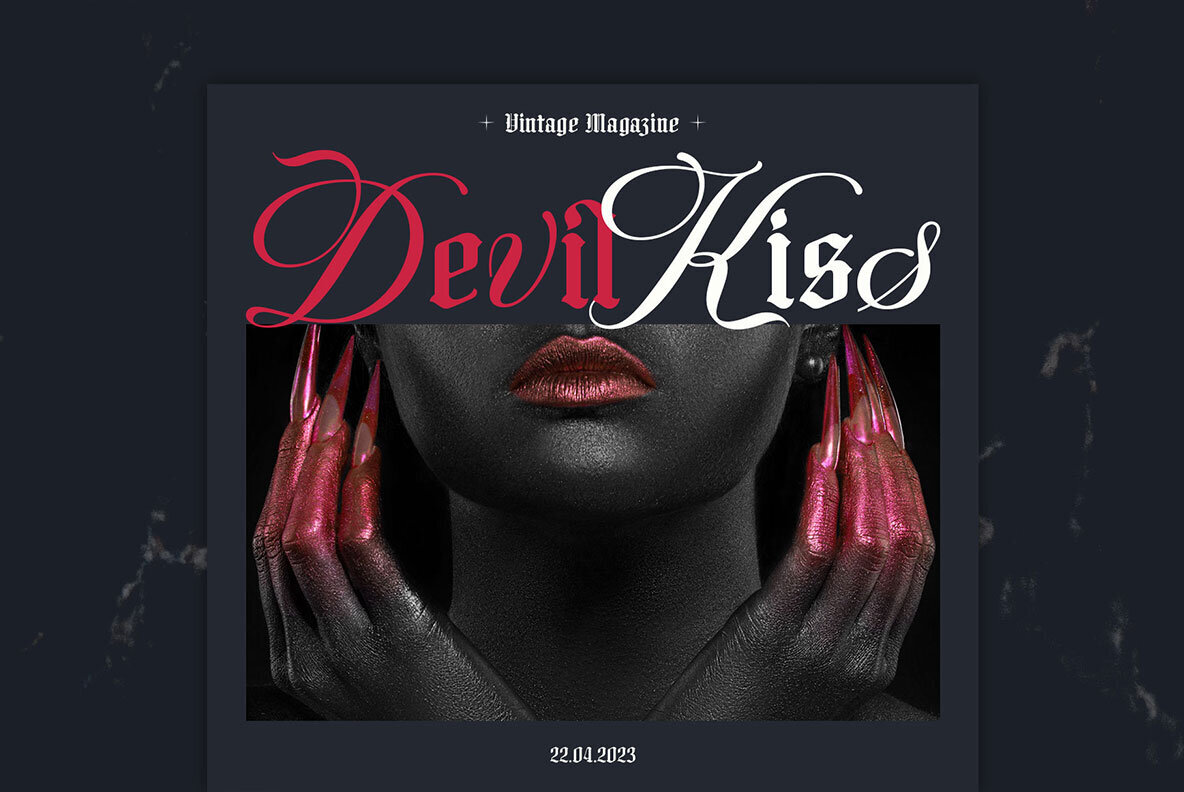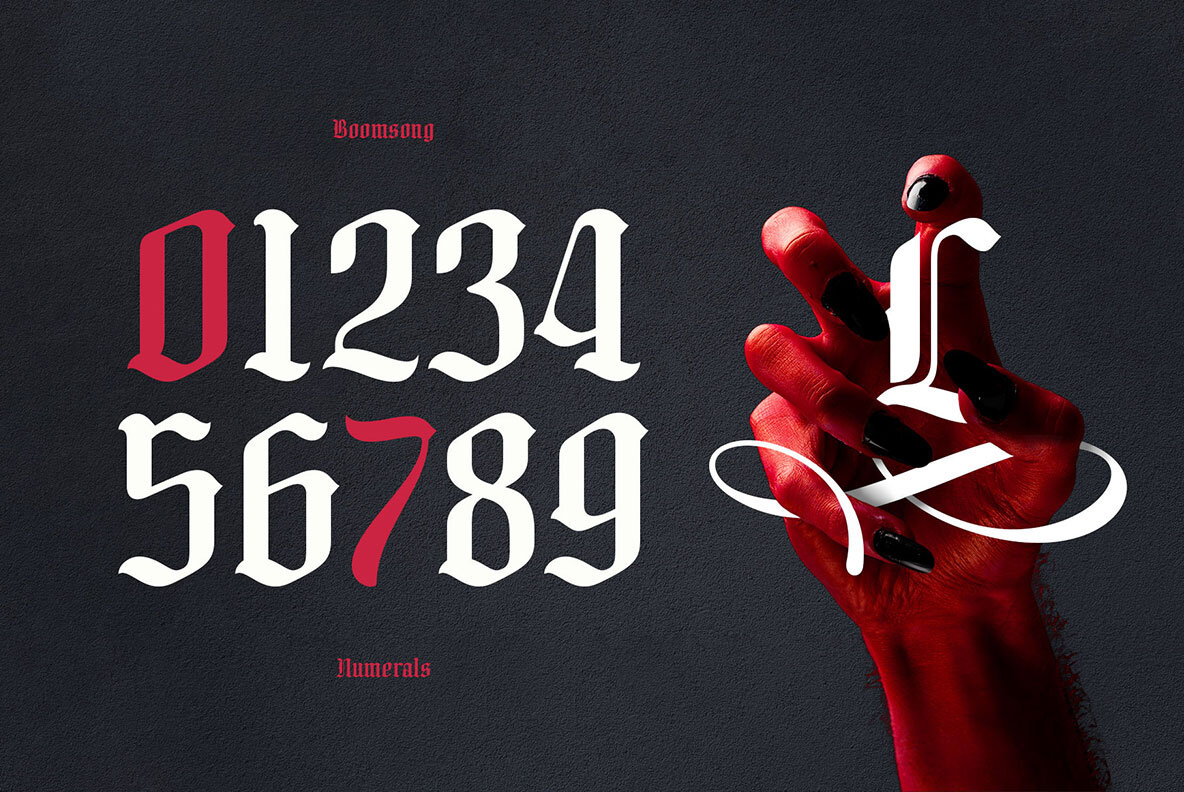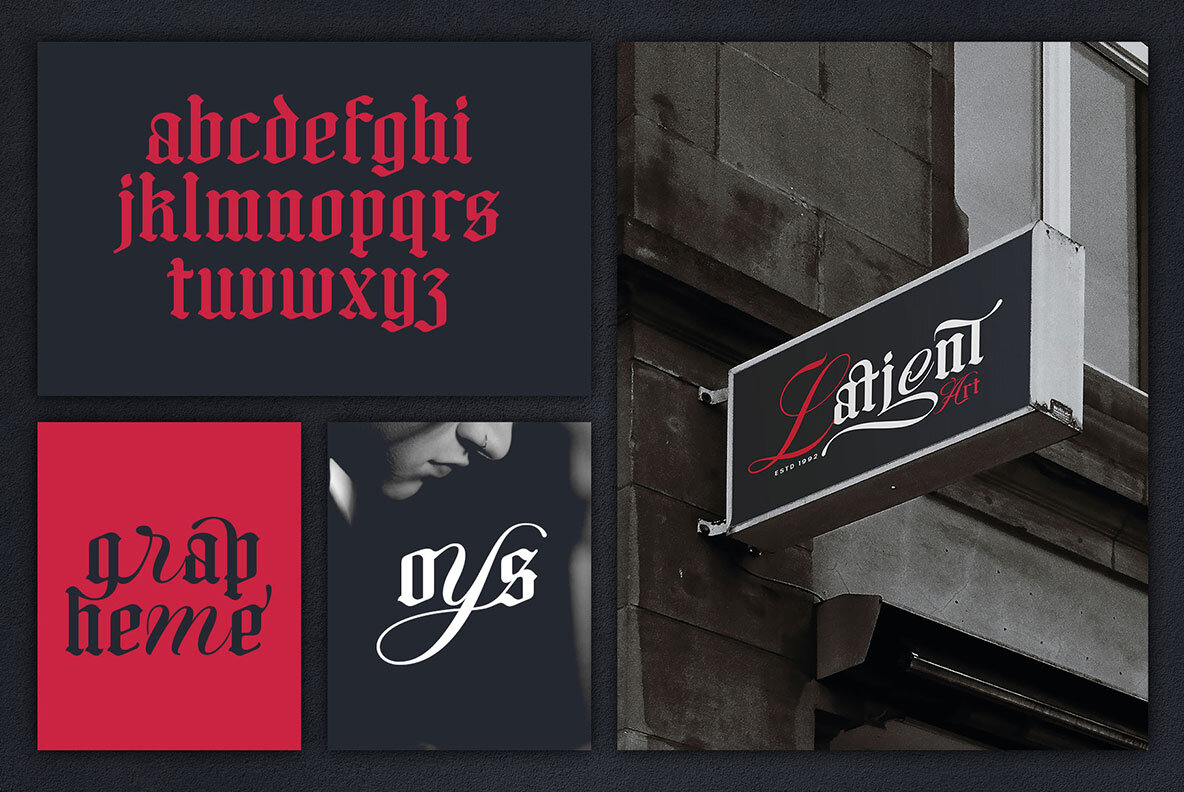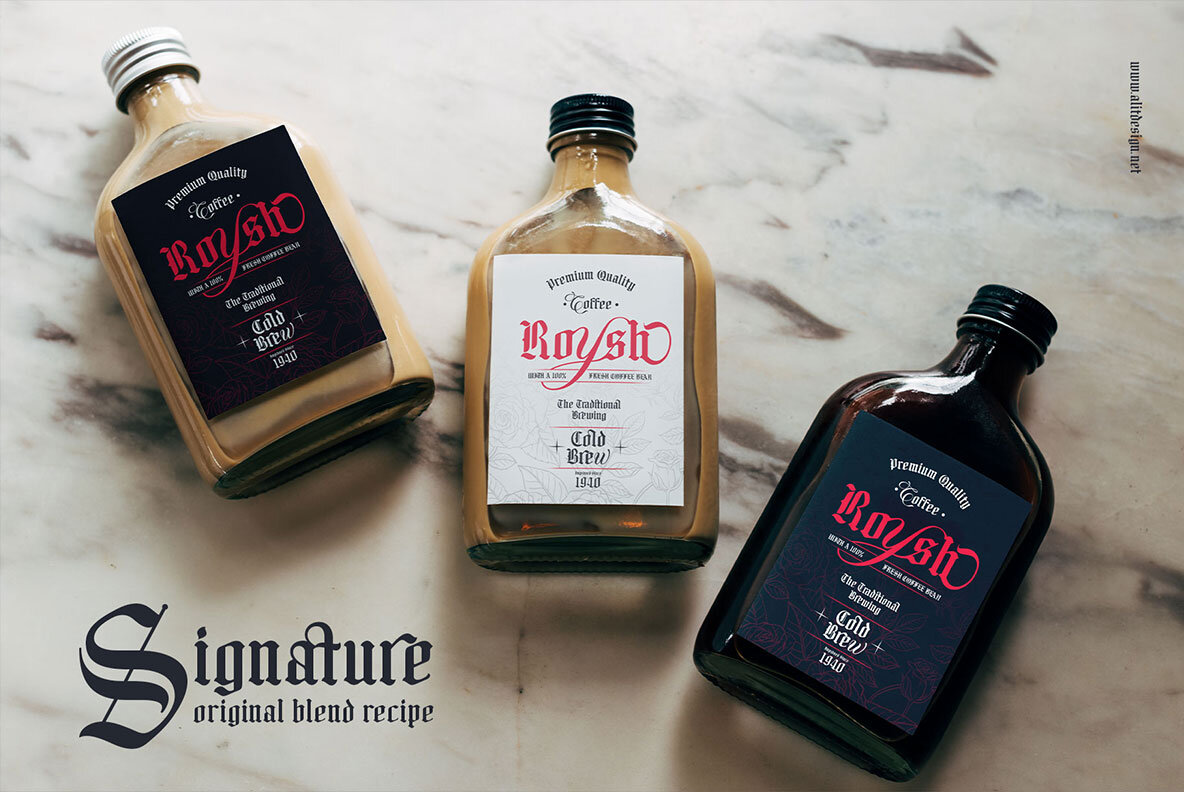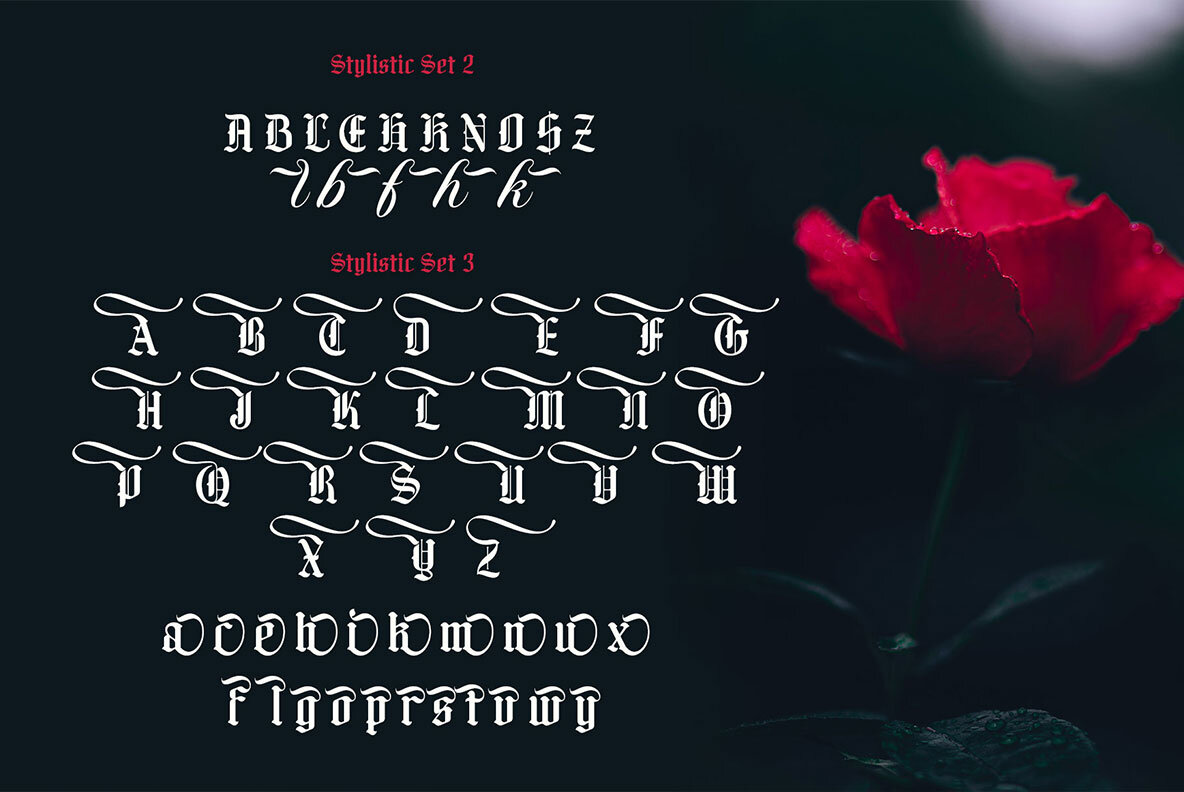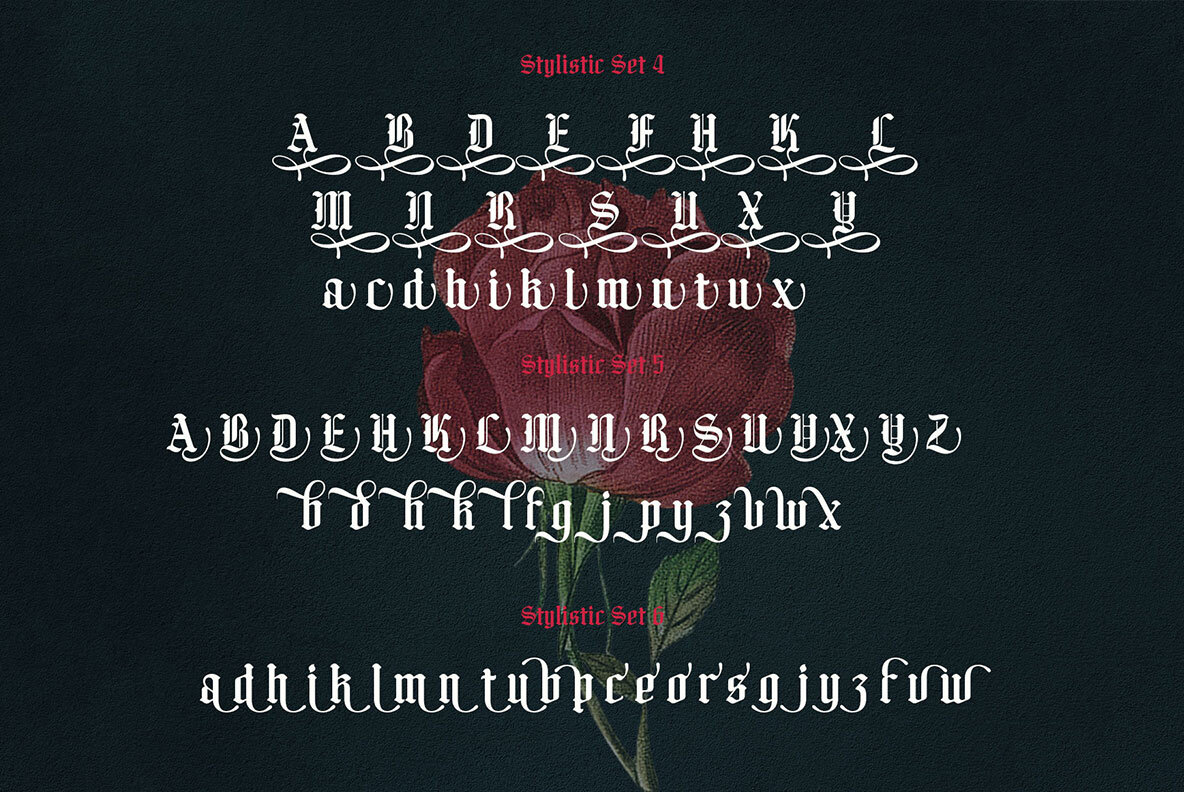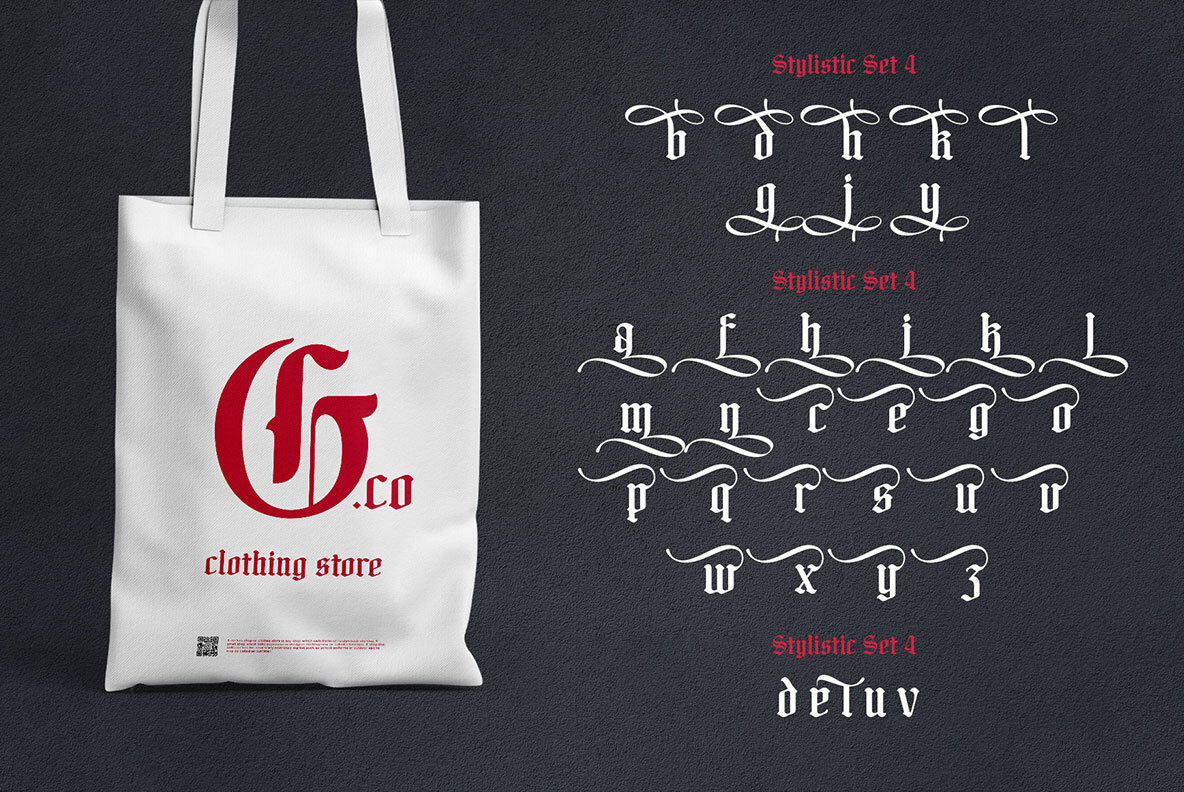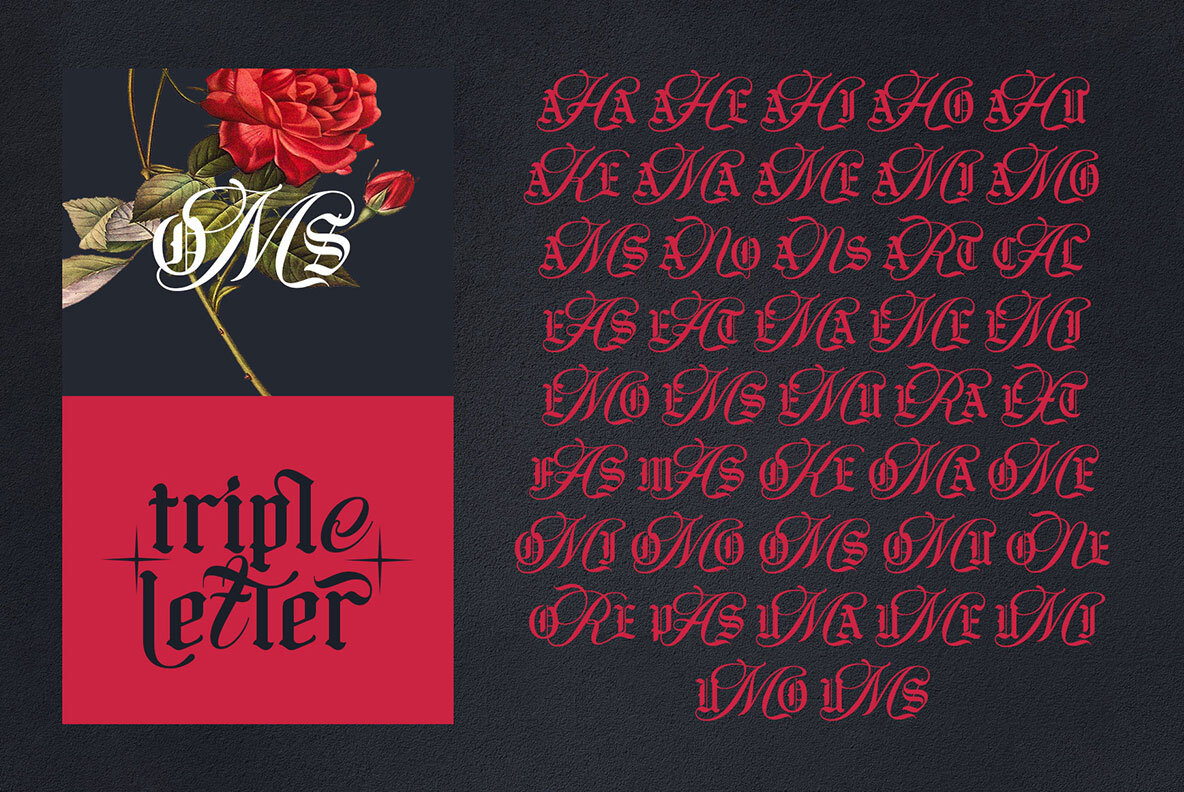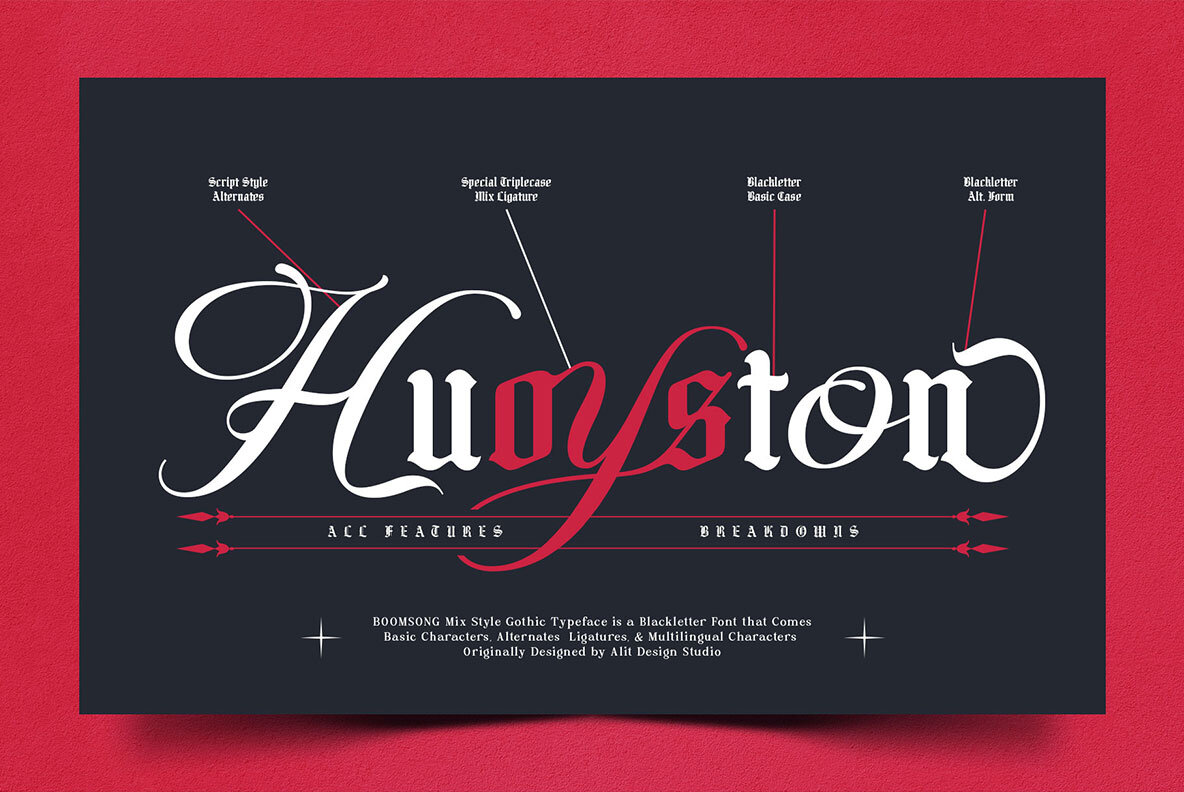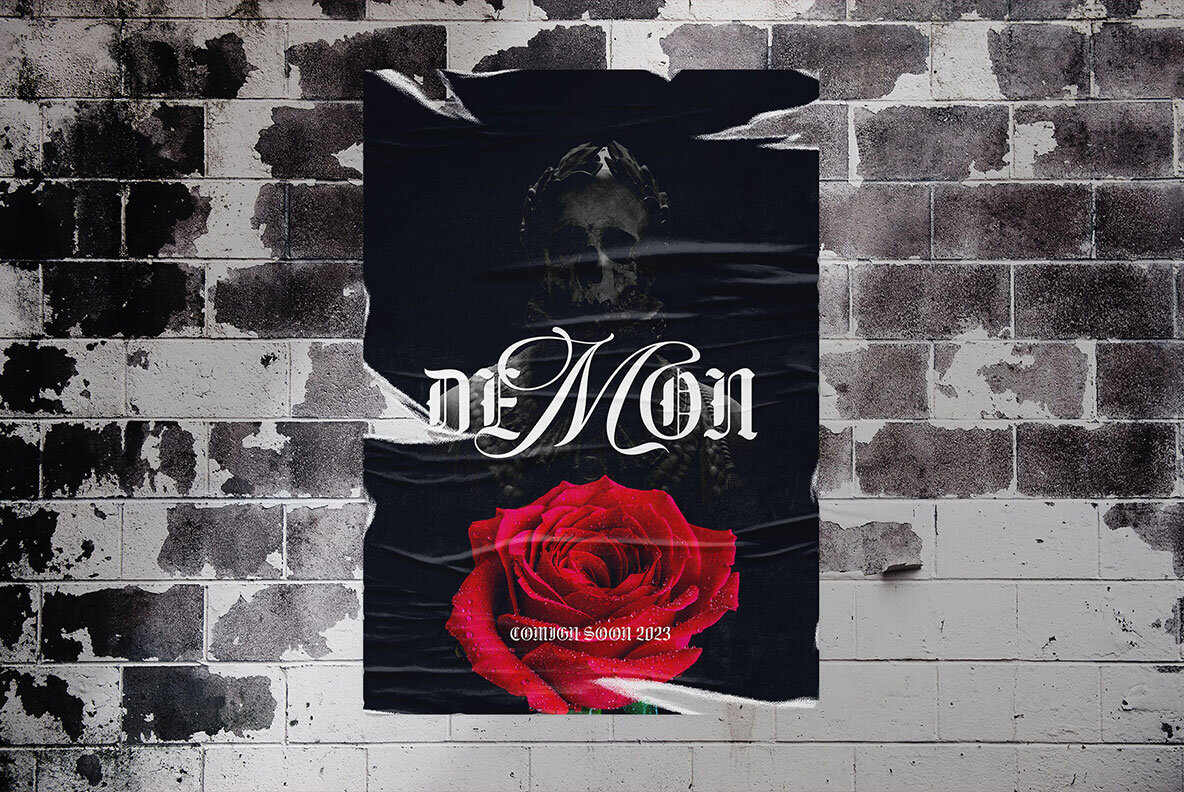
Boomsong Font
expand_font Boomsong Font Discover Boomsong, the stunning font that effortlessly blends blackletter and script styles, offering a perfect balance of boldness and refineme... SKU T19409 Beauty,Blackletter,Elegance,Script,Gothic,Tattoo,Punk,Old English,Old Style Explore Exceptional Fonts for Digital and Traditional Media Fontpath offers a large variety of fonts for every designer, all at affordable prices and in multiple formats. Browse our best in class fonts today for all your creative needs, you can find everything you need right here at our site! Fonts,sans,sans serif,retro,script,decorative,title,FontPath 20140312040223 Fontpath offers 200,000+ of the most professional fonts found online, start downloading today! Real-Time Font Discovery at Fontpath
Boomsong Font